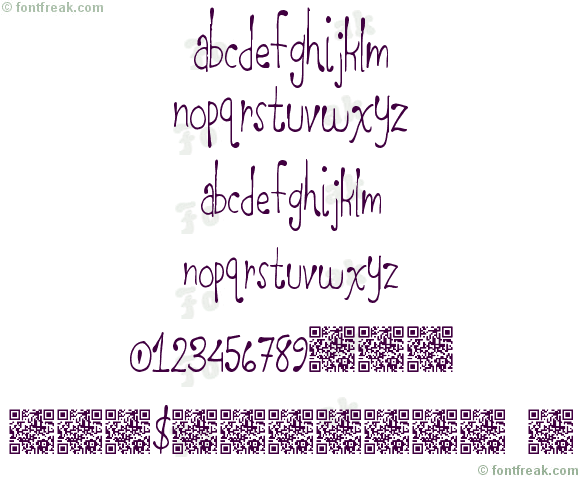
LowerCase
About LowerCase
LowerCase by XEROGRAPHER FONTS is a captivating handwritten font that brings a personal touch to any design project. Released in 2013, this freeware font showcases a unique visual style characterized by its playful, informal strokes. The font features a consistent stroke weight with slight variations that create a sense of authenticity and warmth, making it ideal for conveying a friendly and approachable tone. The letters exhibit a charming irregularity, enhancing their handwritten appeal, while the spacing is balanced, ensuring readability across various applications.
The LowerCase font is perfect for a range of creative uses. Its whimsical style makes it an excellent choice for wedding invitations, where a touch of personality can elevate the overall design. Additionally, it works wonderfully for children's book covers, giving a playful vibe that appeals to young readers. Graphic designers may find it suitable for social media graphics, where eye-catching typography can grab attention and engage audiences. Restaurant menus could benefit from the inviting nature of LowerCase, making diners feel at home. Lastly, this font can add flair to personalized stationery, ensuring that every note feels special.
Targeting graphic designers, small business owners, and content creators, LowerCase appeals to anyone looking to infuse their work with a handwritten aesthetic. Its versatility and charm make it a valuable addition to any designer's toolkit.
What sets the LowerCase font apart is its ability to blend casual elegance with artistic flair. This font not only enhances visual communication but also fosters a connection between the creator and the audience. For those interested in exploring this distinctive typeface, the LowerCase font free download is a fantastic opportunity to incorporate its unique character into your next project.